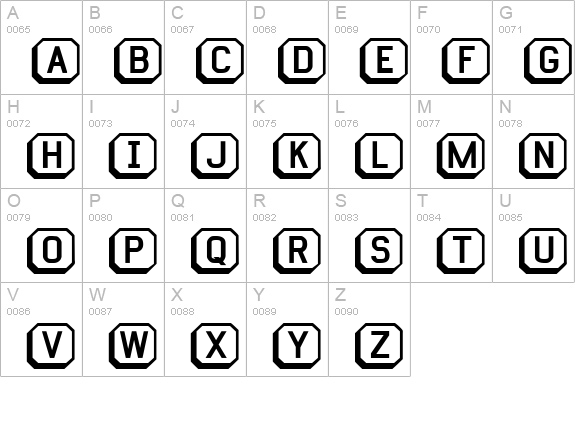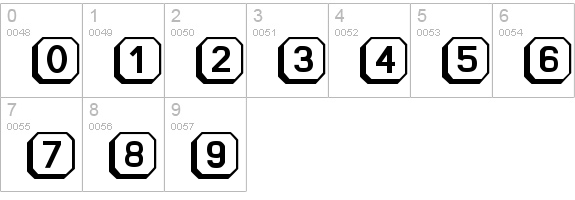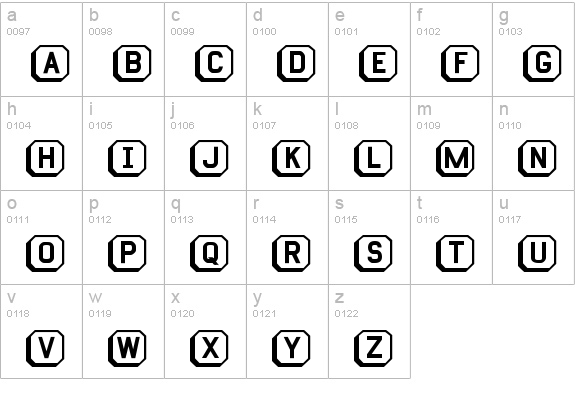
Keyboard Bold is a strong, high-contrast variant in the Keyboard typeface family \xE2\x80\x94 well suited to headlines, attention-grabbing titles, and strong calls-to-action.
Introducing Keyboard Bold font, a powerful and captivating typeface that exudes confidence and boldness with every character. Designed with great attention to detail, this font is perfect for making a strong statement in your designs. With its bold and striking appearance, Keyboard Bold commands attention and leaves a lasting impression. Whether you're creating headlines, logos, or eye-catching posters, this font is sure to make your message stand out from the crowd. But what makes Keyboard Bold even more impressive is that it is available for free download at FontsMarket.com. Yes, you read that right! This incredible font can be yours without spending a dime. FontsMarket.com is a trusted source for high-quality fonts, and their commitment to providing free fonts to designers and creatives around the world is truly commendable. With just a few clicks, you can have Keyboard Bold at your fingertips, ready to elevate your designs to new heights. So why wait? Unlock the power of Keyboard Bold and unleash your creativity today. Download this remarkable font for free at FontsMarket.com and let your designs make a bold statement that leaves a lasting impact.